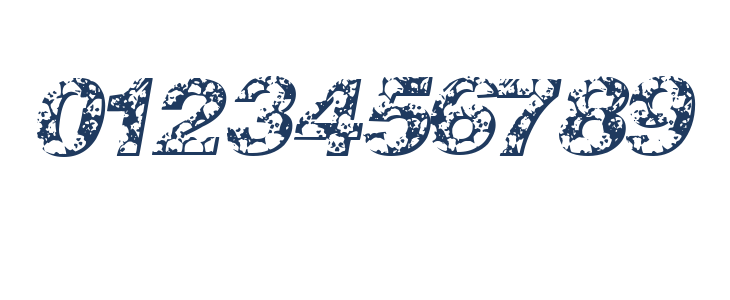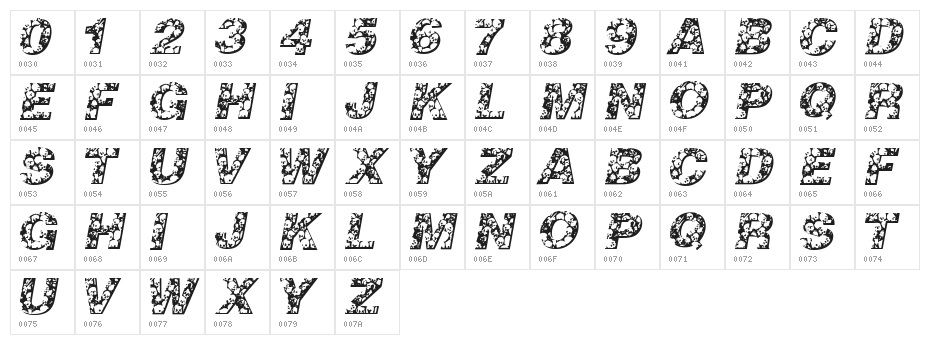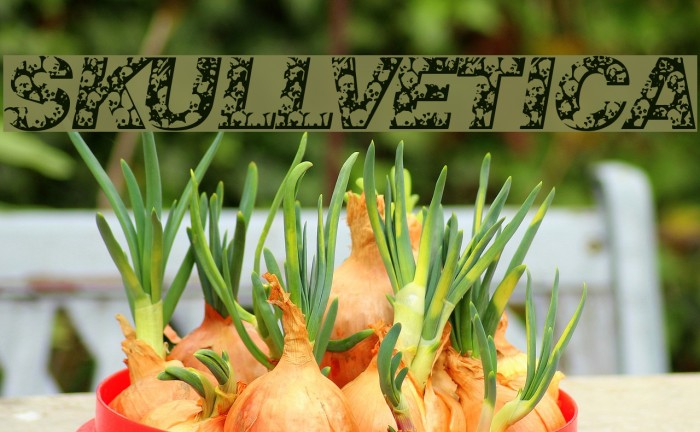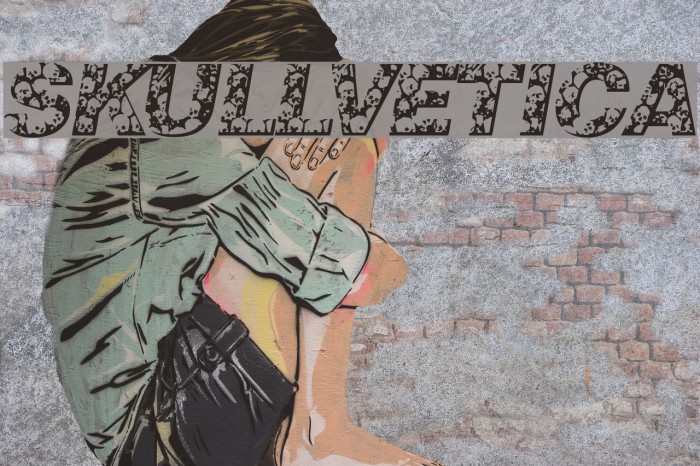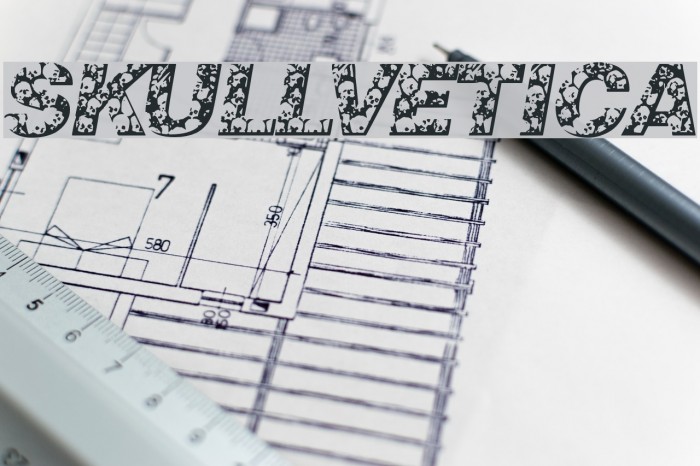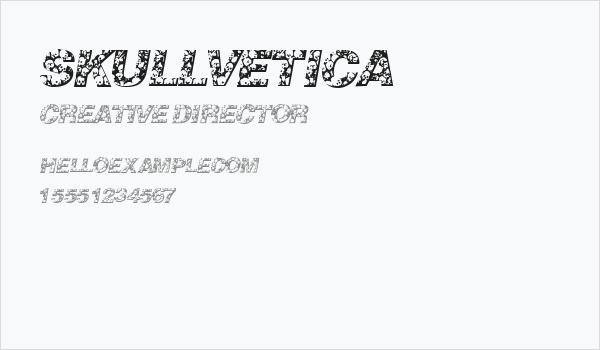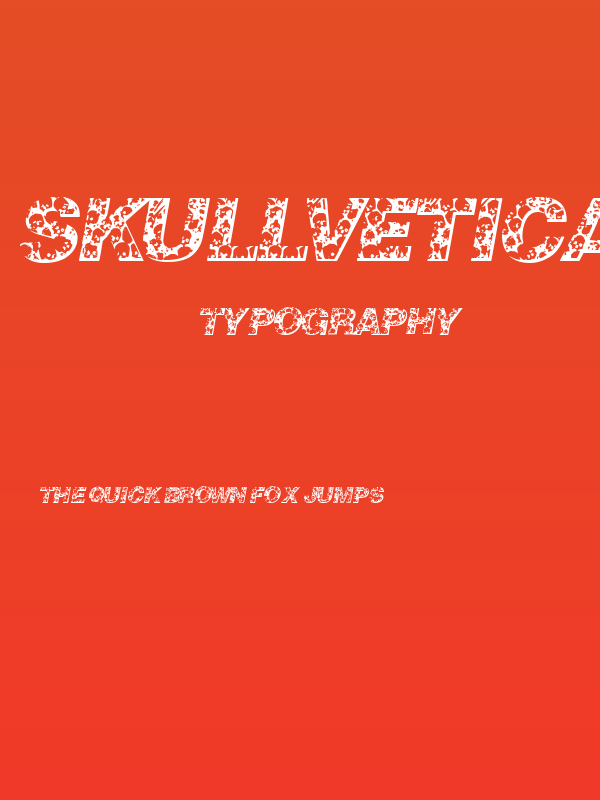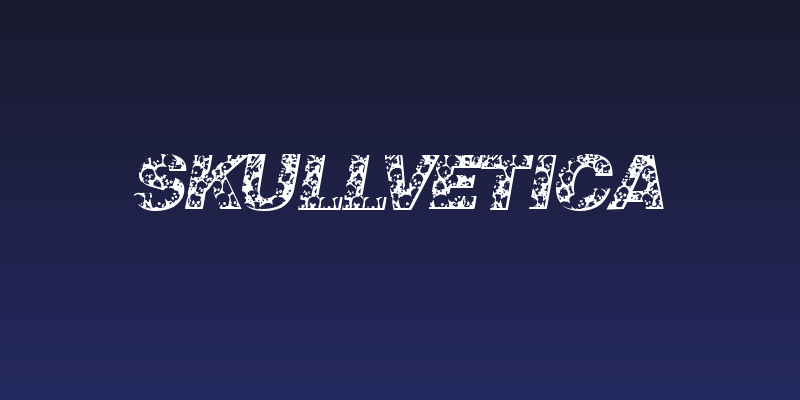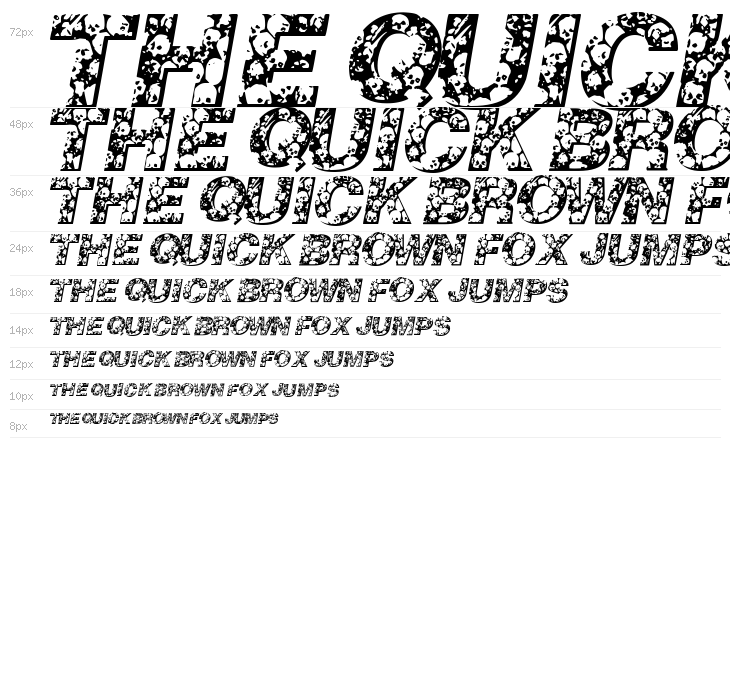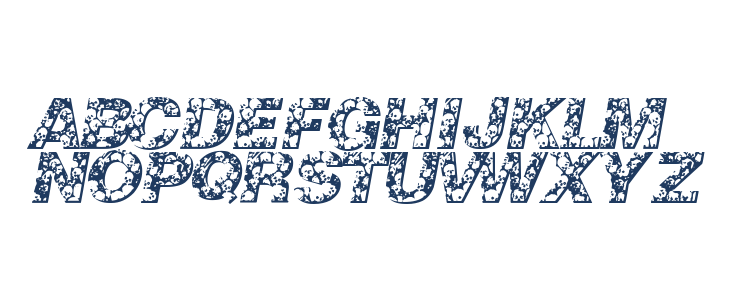
Skullvetica Font
Skullvetica Description
This font features a bold, decorative style with a unique twist. Each character is filled with intricate skull patterns, creating a striking visual effect. The uppercase letters are bold and slightly slanted, giving a dynamic and edgy appearance. The numbers follow the same decorative pattern, maintaining consistency throughout the typeface. This font is perfect for projects that require a bold statement and a touch of the macabre. Its distinct style makes it ideal for Halloween-themed designs, rock band logos, or any creative project that seeks to capture attention with a bold and unconventional look.
| Use Case | Logos, Headlines |
| Proposed Projects | Ideal for Halloween designs, rock band logos, or any project needing a bold, edgy look. |